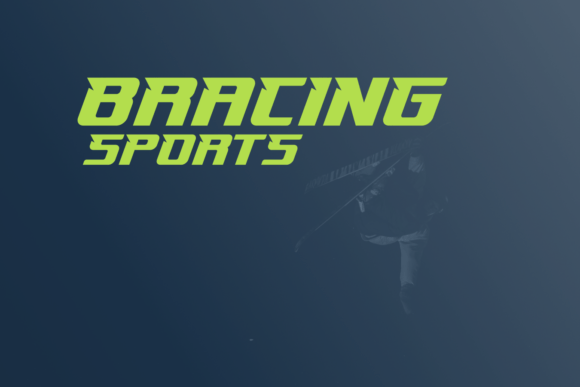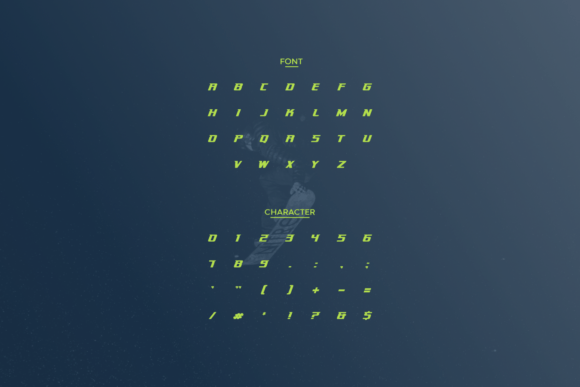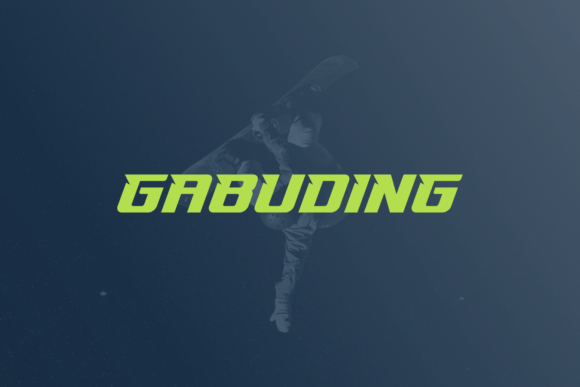
The Winning Formula for Dynamic Typography
Imagine you’re a sports enthusiast, watching a high-octane racing event on TV. The announcer’s voice is loud and clear, and the graphics on screen are bold and attention-grabbing. That’s when you know you’re witnessing something special – a perfect blend of style and energy. And that’s exactly what you need to convey when designing for the world of sports.
Enter the Baguro Font, a cool sports display font that’s designed to capture the essence of high-speed action. With its wide italic fonts, modern cutouts, and dynamic slant, this font is ideal for fast-paced sports titles, running matches, cycling, and automotive game logos. Whether you’re a designer looking to create an eye-catching logo or a sports enthusiast wanting to add some flair to your graphics, the Baguro Font is a valuable tool to have in your arsenal.
Baguro Font Key Features
- Font Family: Baguro Font is a modern sans-serif font family designed for digital use. It comes in 6 styles: Thin, Light, Regular, Medium, Bold, and Black.
- Unique Characteristics: The font features a unique blend of geometric and organic shapes, giving it a modern and sophisticated look. It also has a high x-height, making it easy to read at small sizes.
Baguro Font Review
When I first saw the Baguro Font, I was immediately drawn to its unique and modern design. It’s clear that the designer aimed to create a font that would stand out from the crowd, and they succeeded ✨. The font’s bold and geometric shapes make it perfect for headings and titles, and its clean lines give it a professional feel.
One of the things that works well about the Baguro Font is its versatility. It comes in a variety of weights, from light to bold, which makes it easy to use in a range of applications, from web design to print materials ✨. The font also has a wide range of language support, which is a major plus for designers who work with international clients ✨.
- ⚠️ The font may be too bold for certain applications, such as body text or small-scale designs.
- ⚠️ The font’s geometric shapes may not be suitable for designs that require a more organic or hand-drawn feel.
- ⚠️ The font’s limited italics and script options may be a limitation for designers who need to create emphasis or add a touch of elegance to their designs.
The Baguro Font is a solid choice for designers who are looking for a modern and bold font that can add some excitement to their designs. While it may have some limitations, its versatility and unique design make it a great addition to any designer’s toolkit.
For best results, use Baguro Font for headings and titles, as its unique design is best suited for emphasis.
Experiment with different font sizes and combinations to achieve the desired visual effect.
Baguro Font is ideal for creative and artistic projects, such as:
- Graphic design and visual identity projects.
- Artistic and creative writing projects.